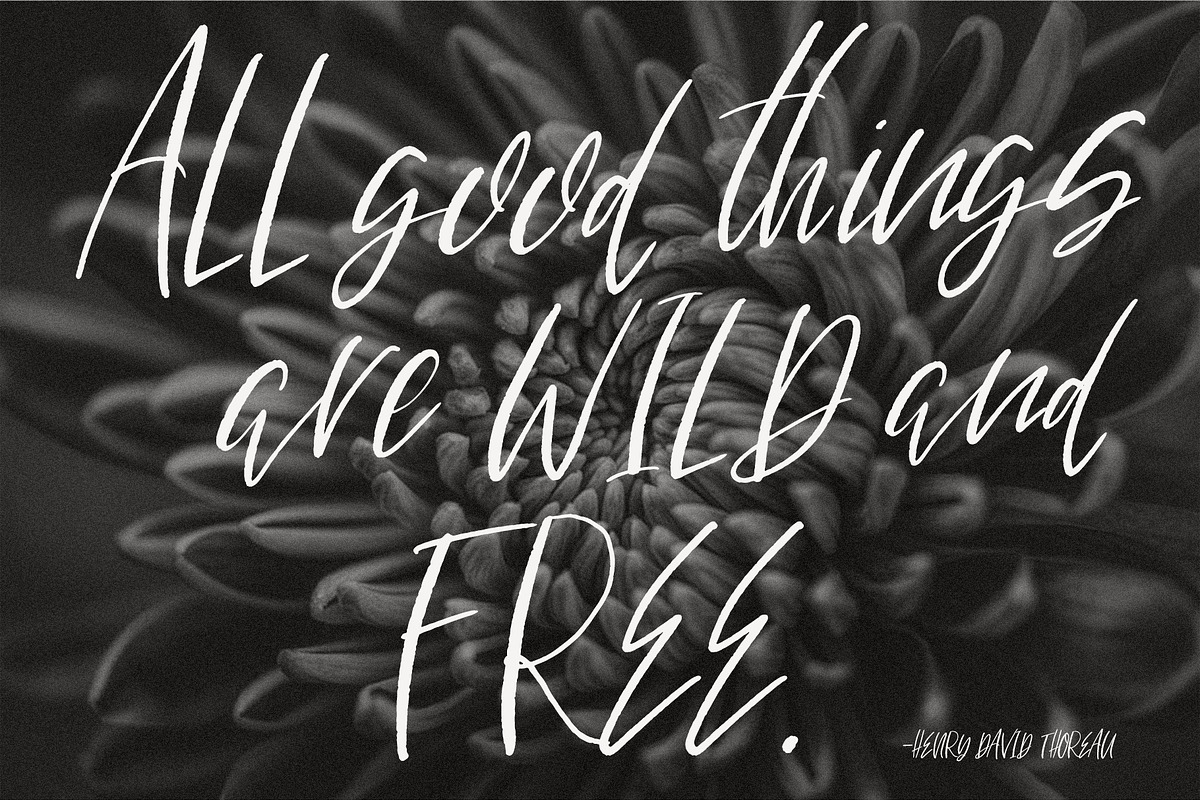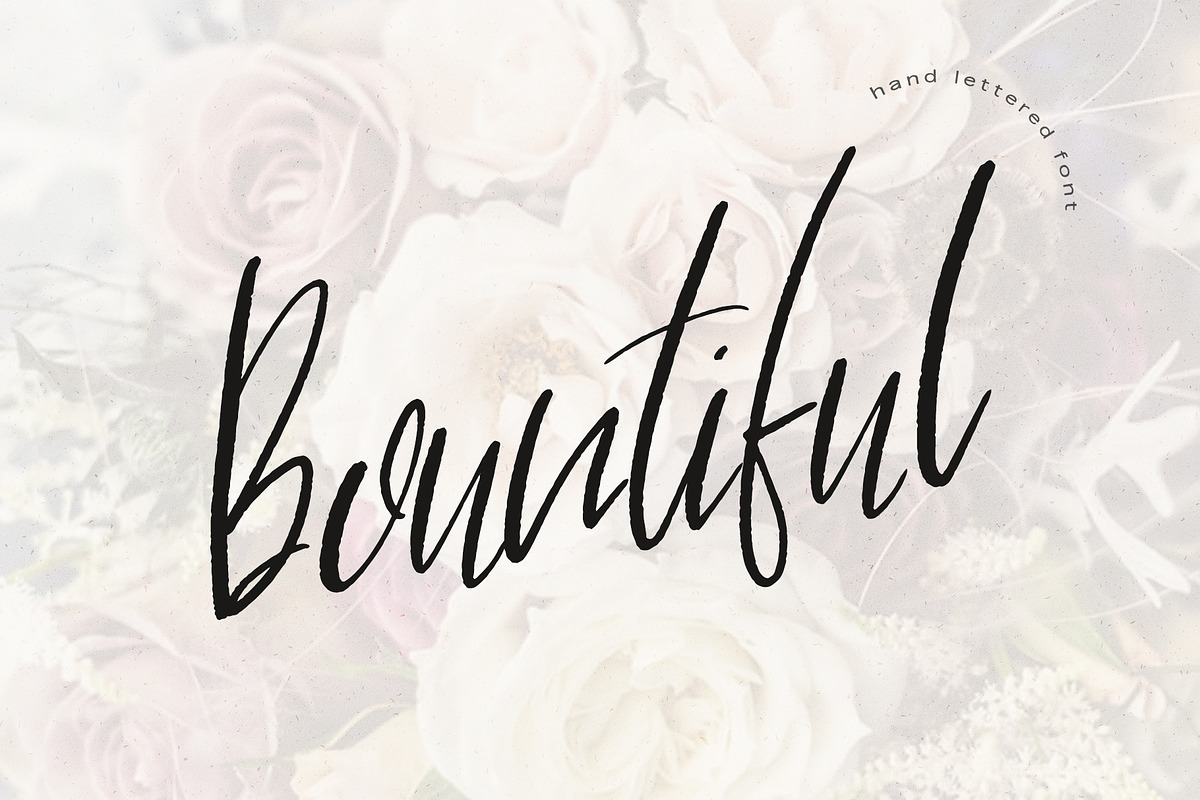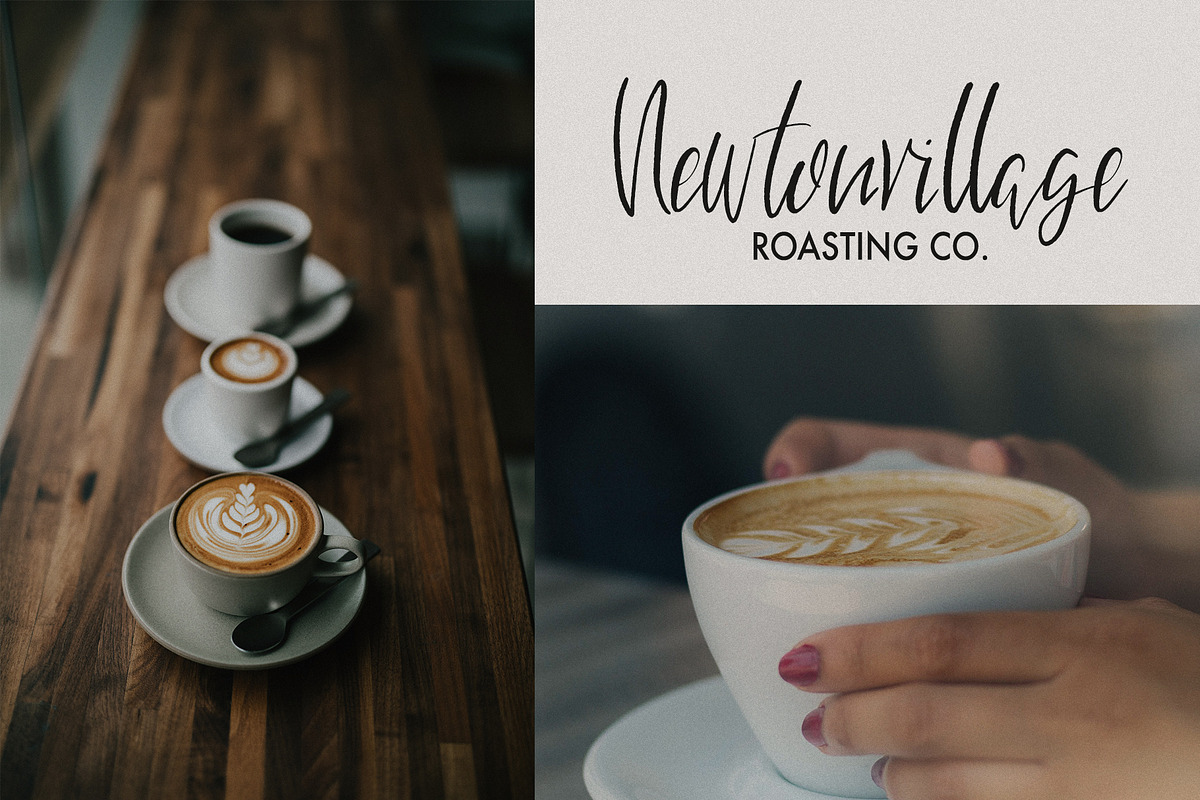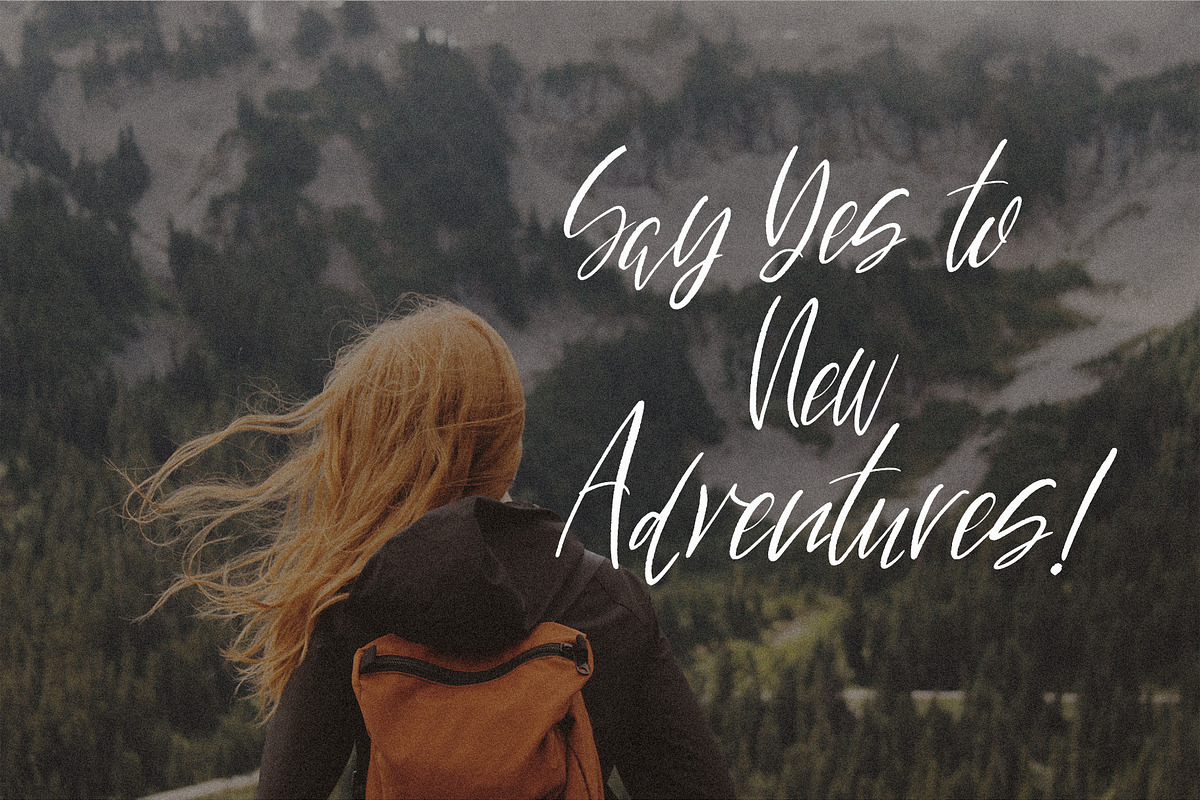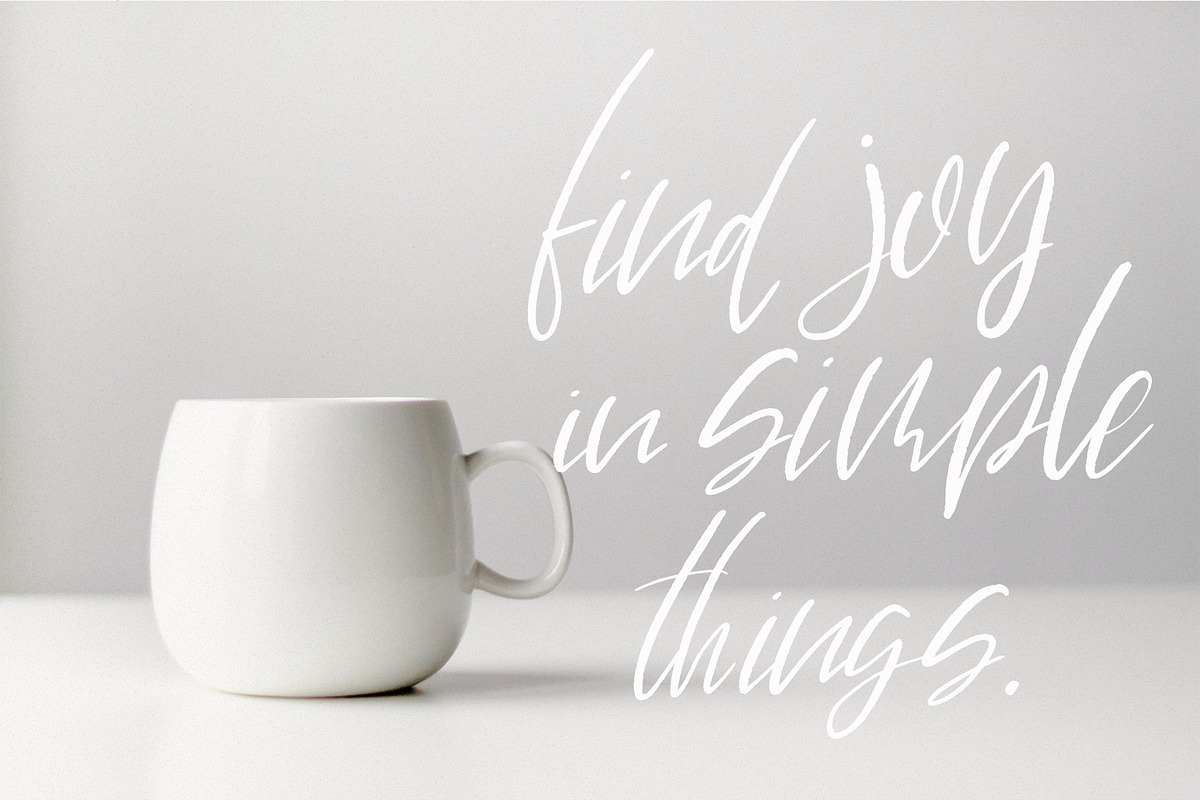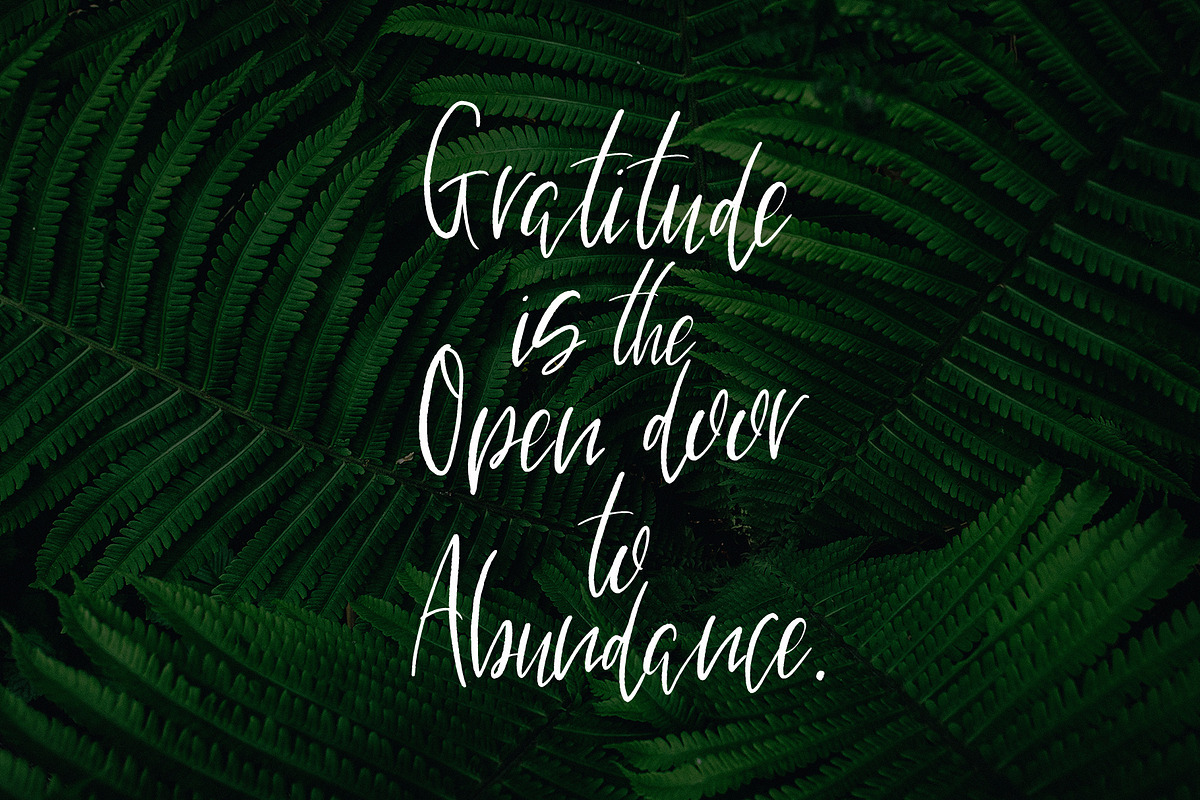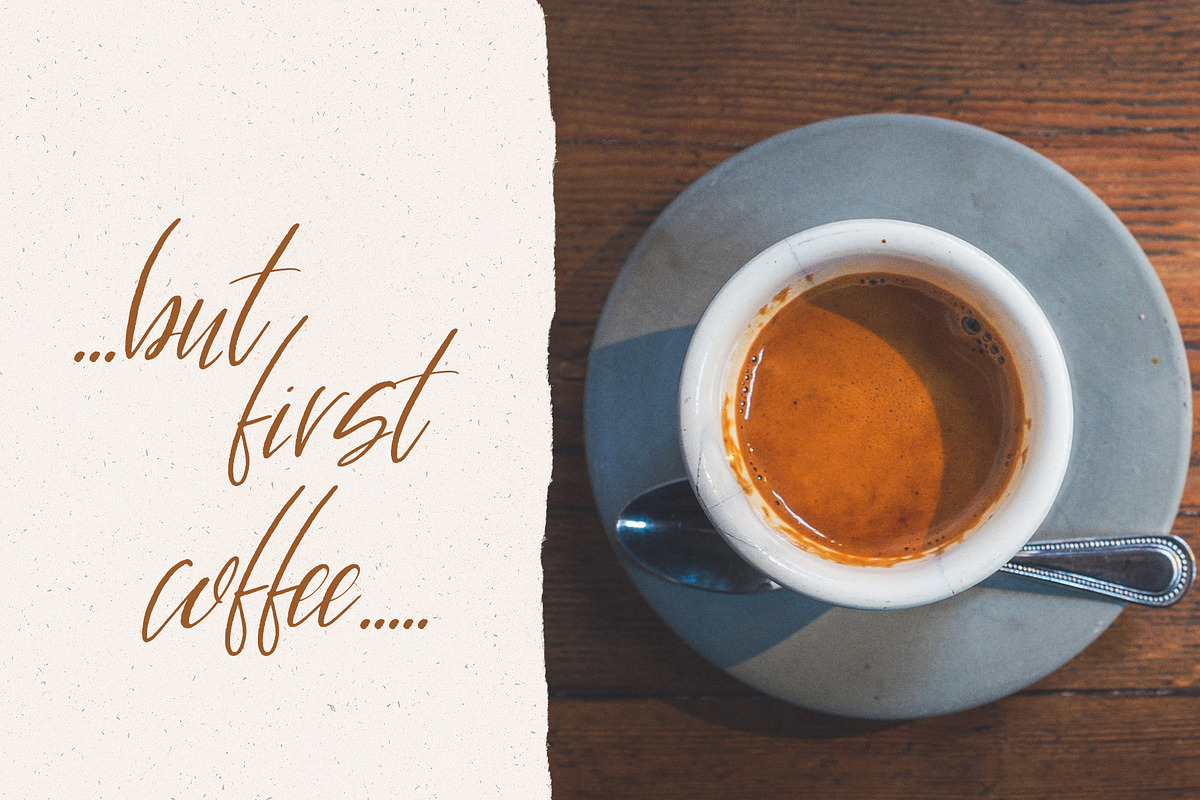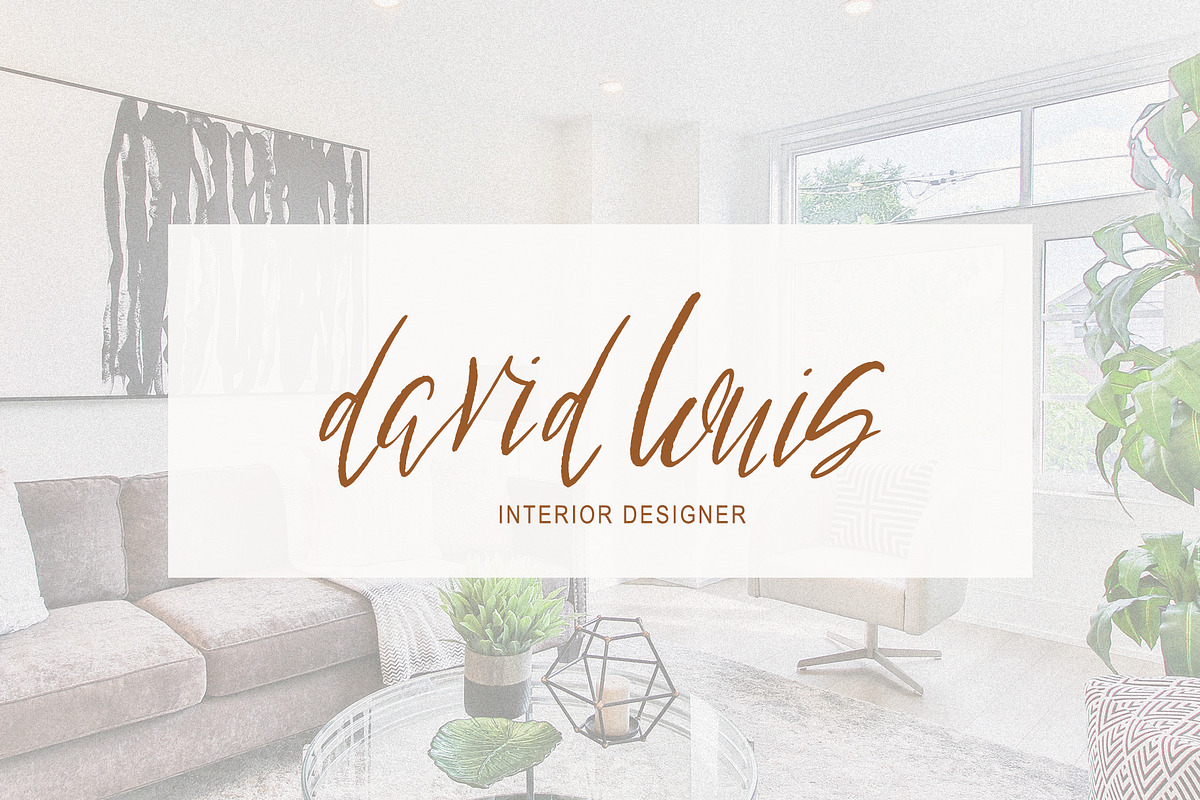
Bountiful Handlettered Font
Bountiful is a hand lettered script font. It is perfect for social media, branding, blogs, logs and more!
Bountiful Handlettered Font by Sweet Fig fits naturally into Branding, posters, packaging, typography.